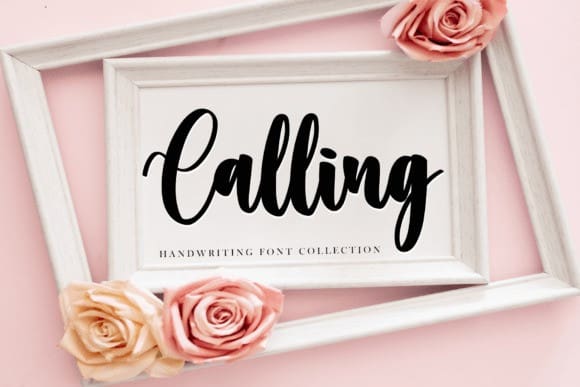
Calling Script Typeface
Calling Script Typeface, is a fun and versatile handwritten font perfect for both formal and informal designs. You can get creative with this cool font and create spectacular masterpieces. Add it to your fonts library, and it will become an instant favorite!